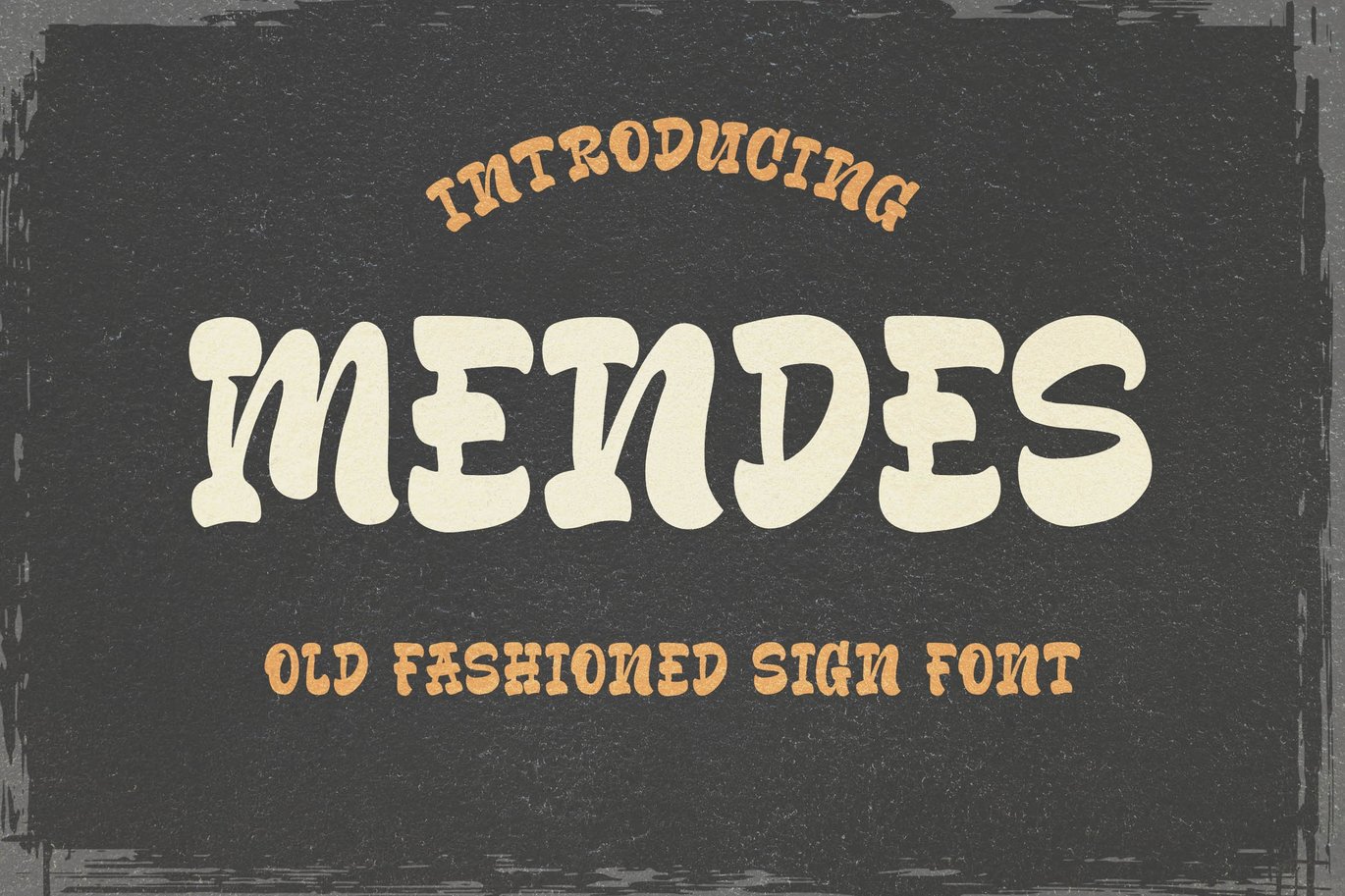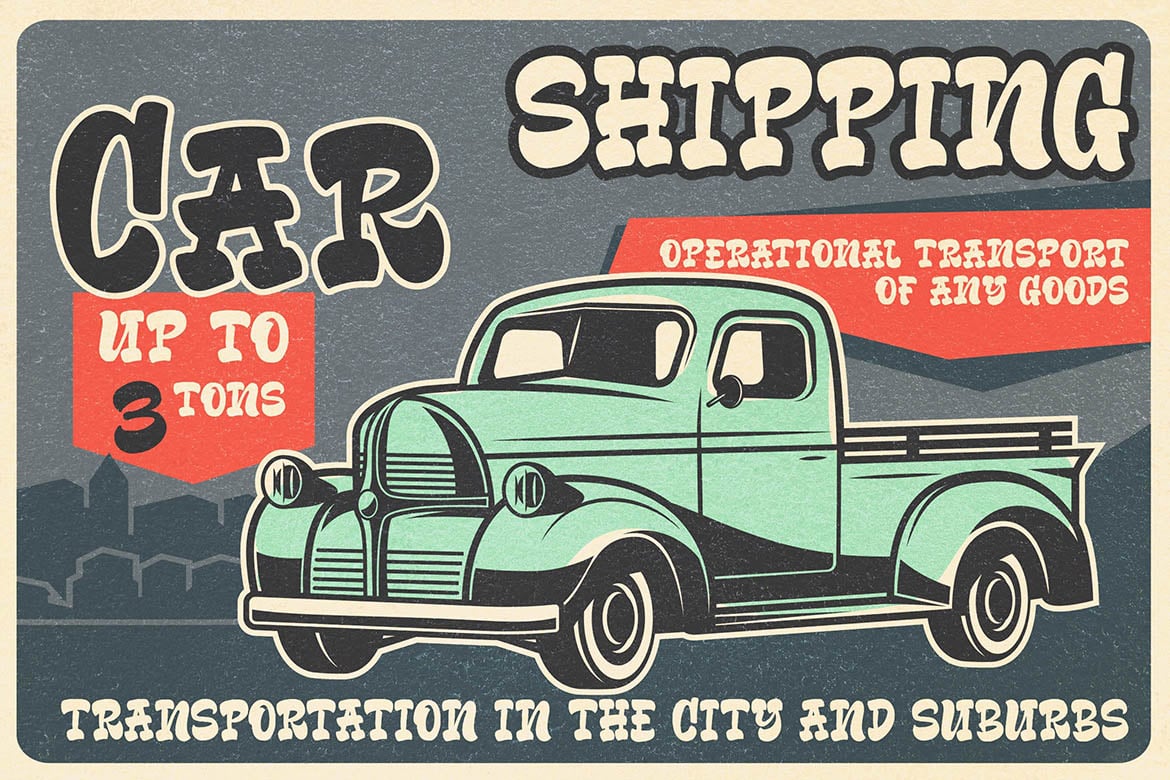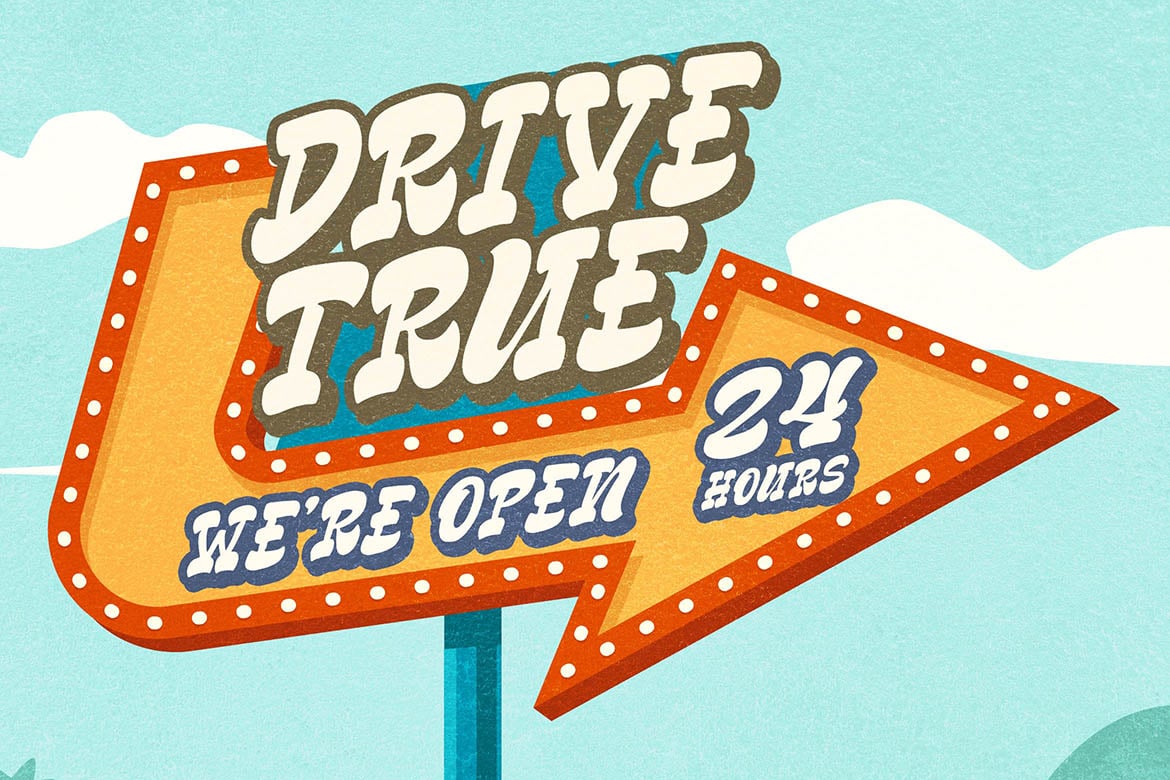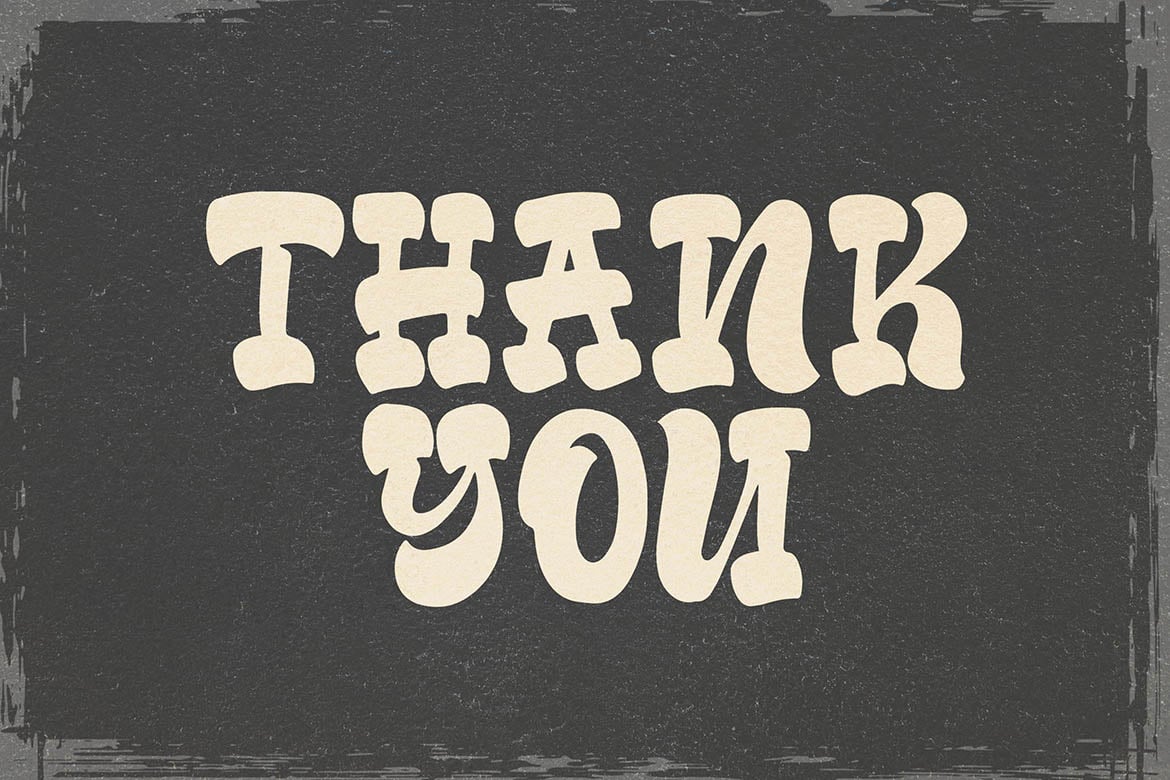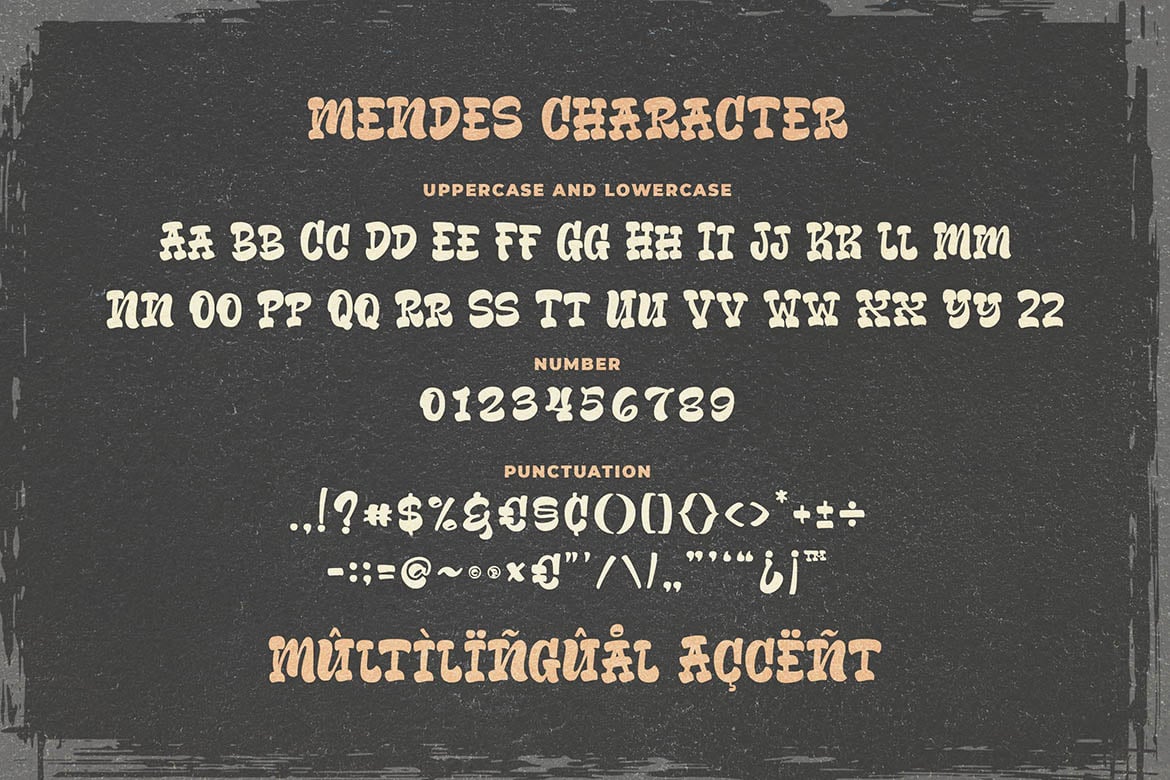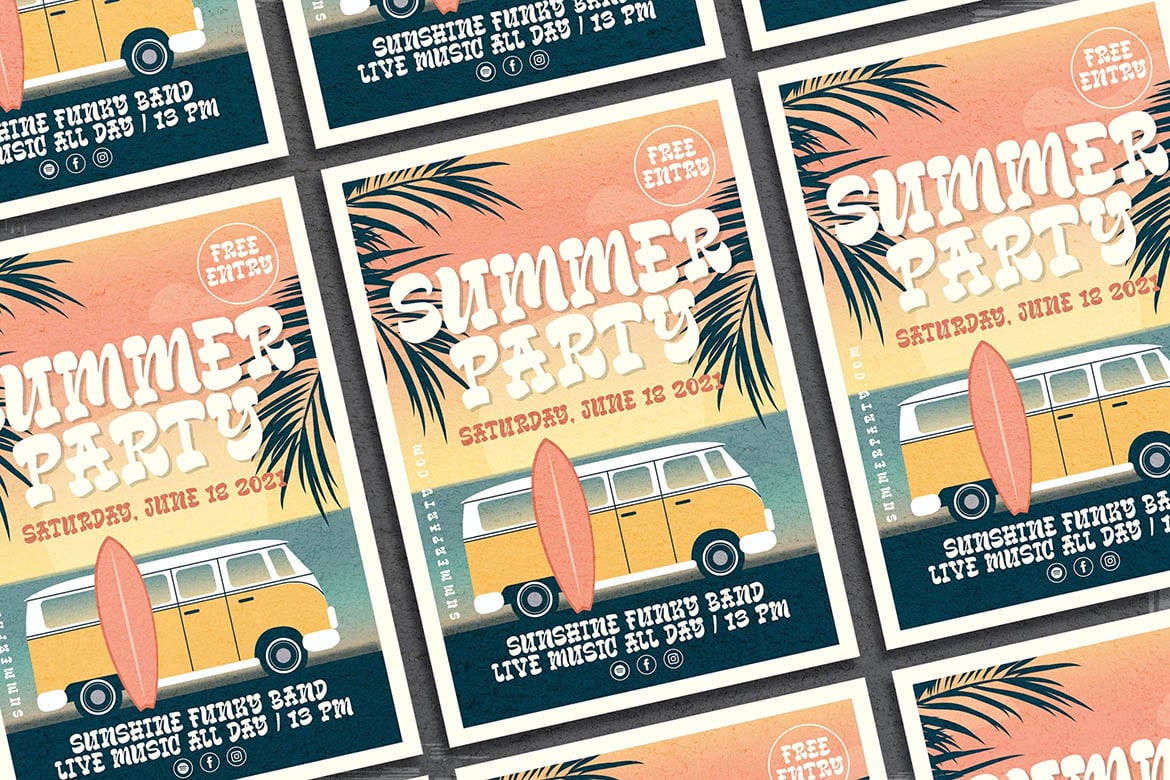
Mendes Old Fashioned Sign Font
Introducing of our new product the name is Mendes Old Fashioned Sign Font inspired by Old Fashioned Sign style with a fun theme very good for branding, vintage sign, retro poster, logotype etc
MULTILINGUAL ACCENT :
ØÆøæ¢ÐŒœÁĂÂÀÄĄÅÃǼĆČÇĈĊĎÉĔĚÊËĖÈĘĞĜĢĠĤÍĬÎÏİÌĮĨĴĶĹĽĻĿŃŇŅÑÓŎÔÖÒŐǾÕŔŘŖŚŠŞŜȘŤŢÚŬÛÜÙŰŲŮŨẂŴẄẀÝŶŸỲŹŽŻáăâäàąåãǽćčçĉċďéĕěêëėèęğĝģġĥíîïìįĩĵķĺľļŀńʼnňņñóŏôöòőǿõŕřŗśšşŝșťţŭûüűùųůũẃŵẅẁýŷÿỳźžż